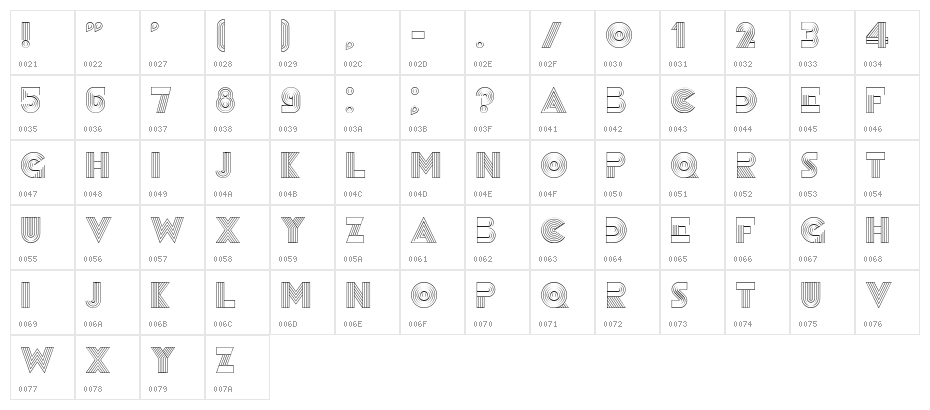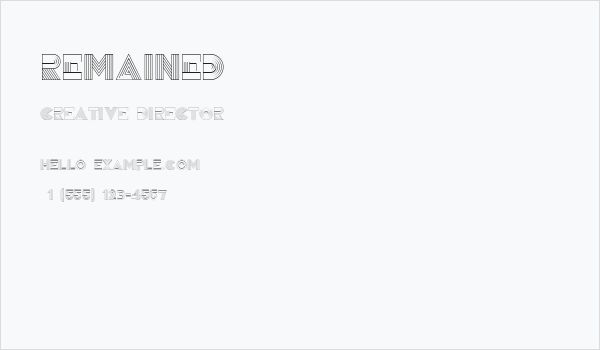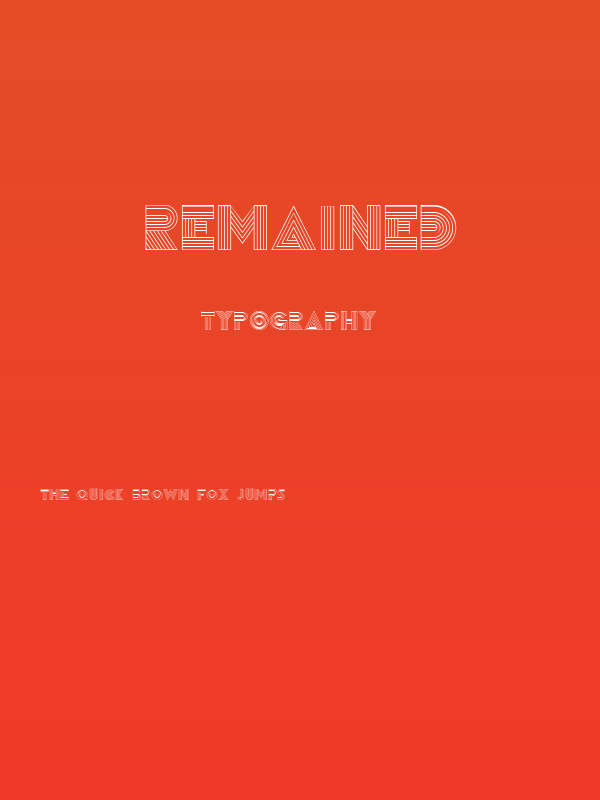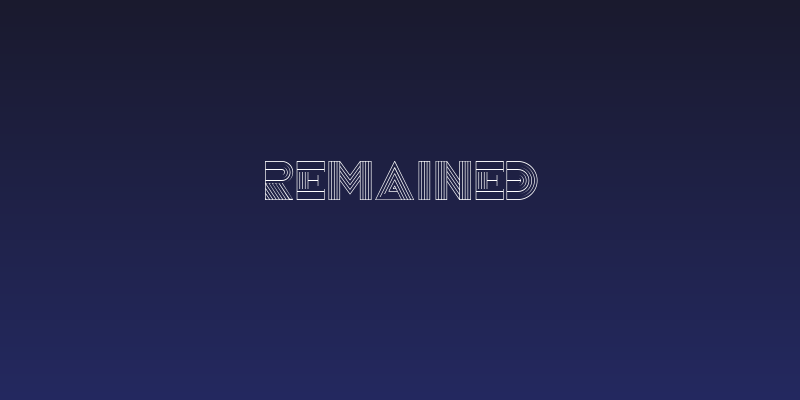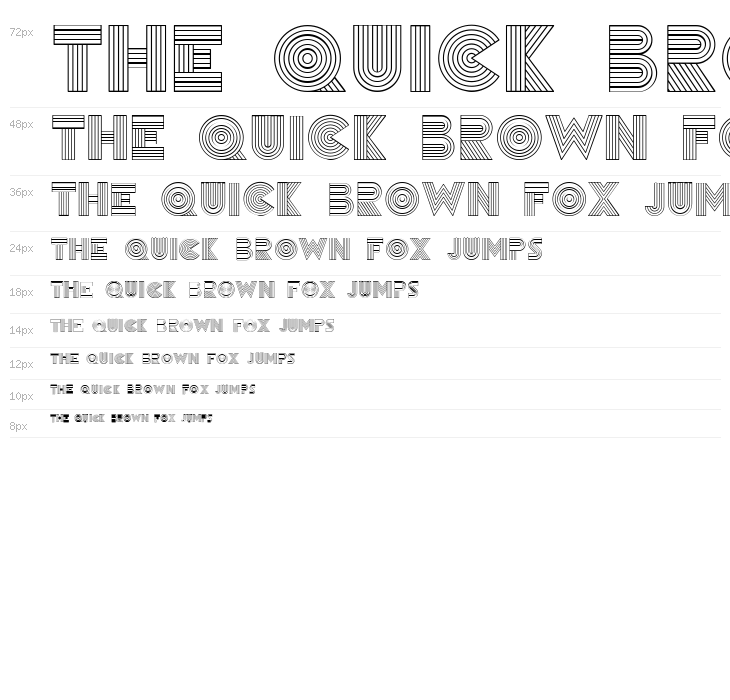
Remained Font
Remained Description
This font features a unique, geometric design with multiple concentric lines forming each character. The letters and numbers are constructed with a series of parallel lines that create a sense of depth and dimension. The style is bold and eye-catching, making it ideal for projects that require a strong visual impact. The characters are evenly spaced, providing a balanced and harmonious appearance. This font's intricate design is perfect for modern and creative applications, offering a distinct and artistic flair.
| Proposed Projects | Ideal for posters, logos, branding, and any design requiring a modern, artistic touch. |